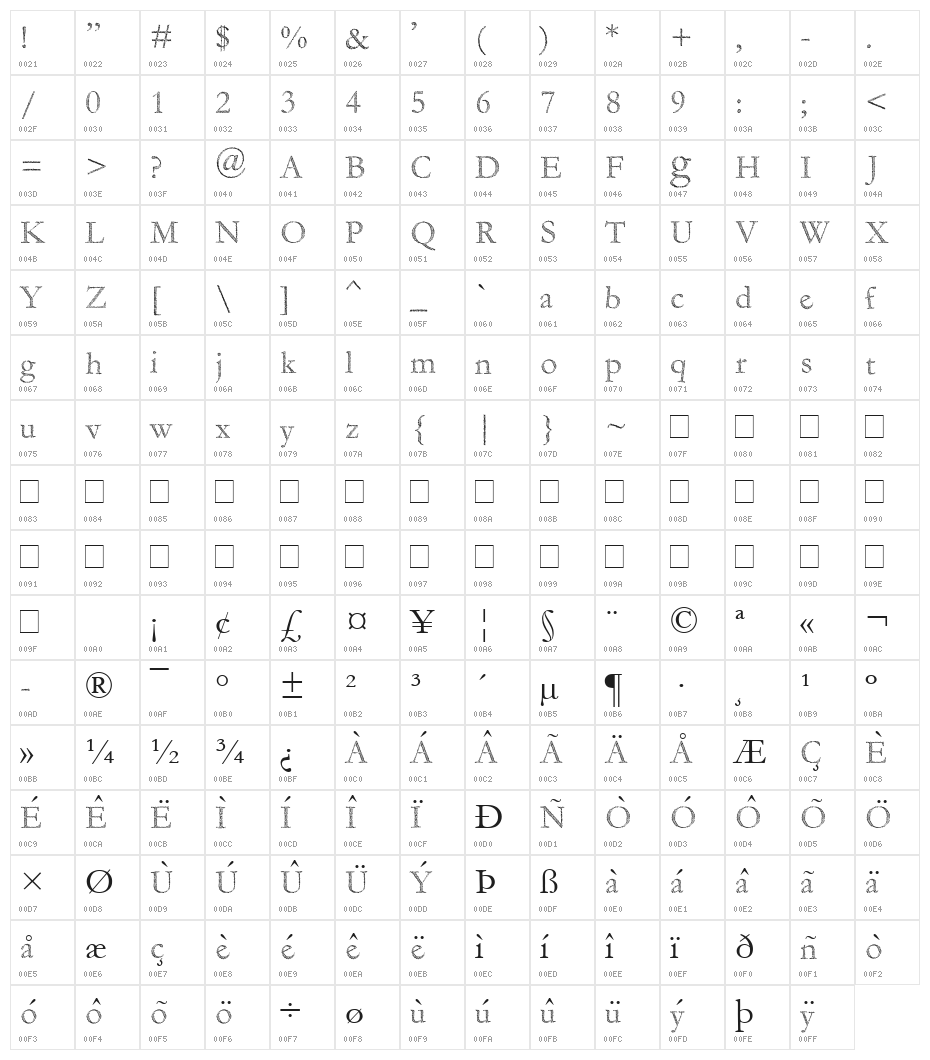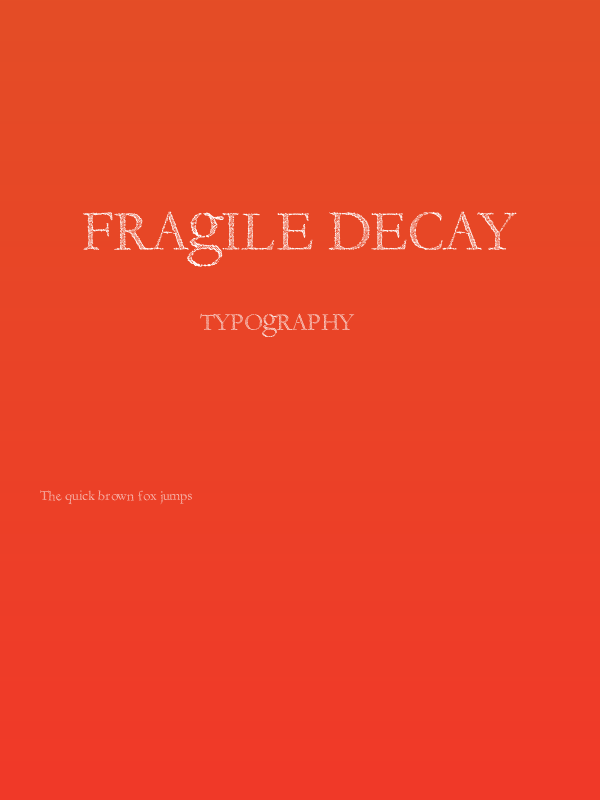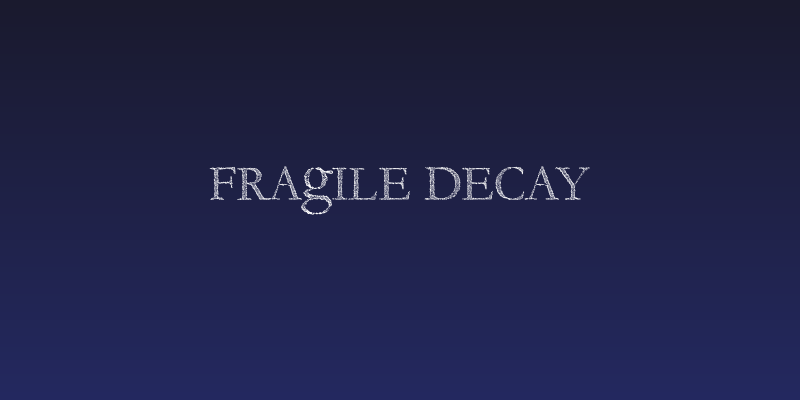
Fragile Decay Font
| Caso d'uso | Headlines, Logos, Decorative text |
| Progetti proposti | Perfect for posters, album covers, book titles, and any design needing a vintage or distressed look. |